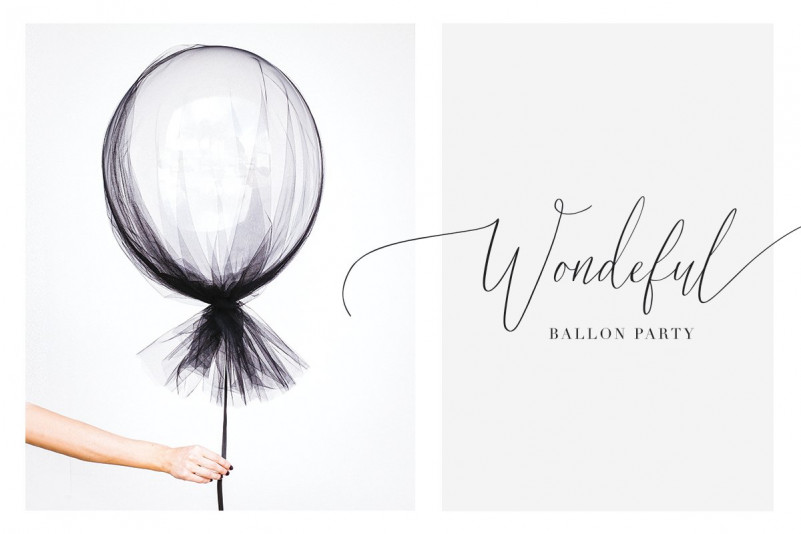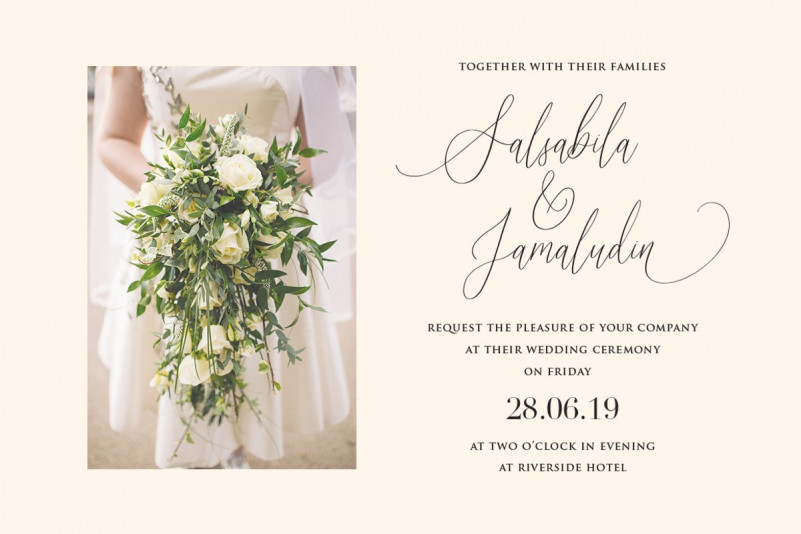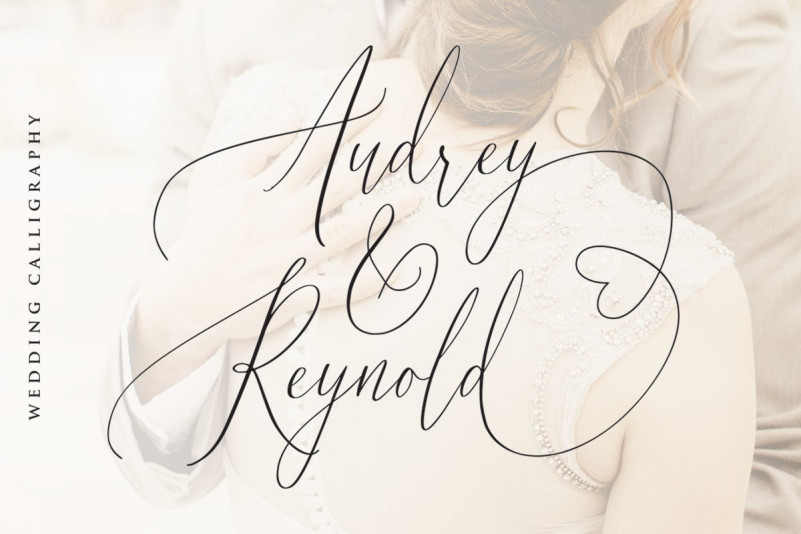
Audrey & Reynold Calligraphy Font
Introducing the new wedding calligraphy typeface, Audrey & Reynold Font! it’s offer beautiful typographic harmony for a variety of design projects. AudreyReynold is modern calligraphy typeface with contemporary, sophisticated accents. It is perfect for wedding branding, wedding invites and cards, and maybe for red wine label.
AudreyReynold includes full set of gorgeous uppercase and lowercase letters, numerals, a large range of punctuation and ligatures. Uppercase and lowercase include beginning and ending swashes, giving realistic hand-lettered style, that makes the font look fabulous!